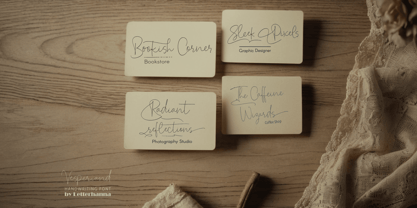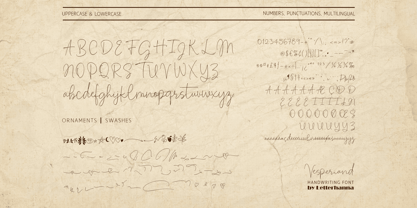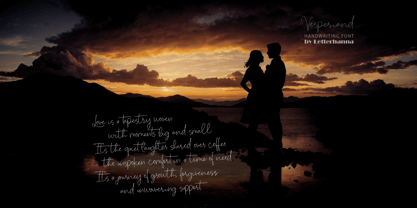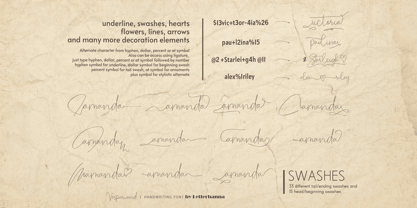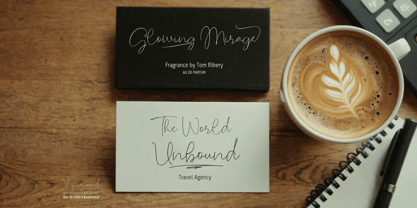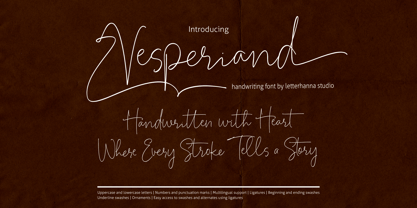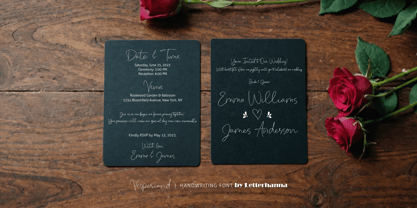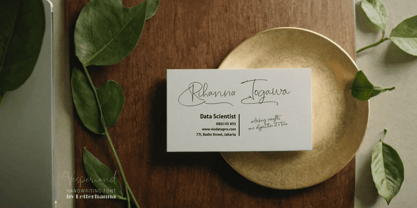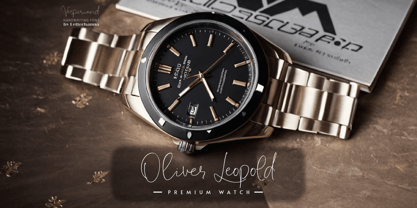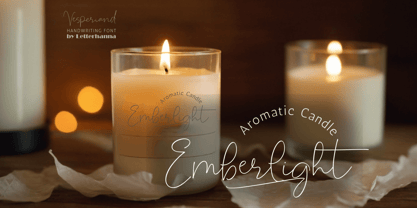
Vesperiand
by Letterhanna Studio
The Vesperiand Font Family was designed by Rinaldo Hasibuan and published by Letterhanna Studio. Vesperiand contains 1 styles.
Introducing Vesperiand, a handwriting script font crafted for those who seek elegance with a personal touch. Designed with a rich collection of stylistic alternates, graceful swashes, and fluid ligatures, Vesperiand brings a natural yet sophisticated feel to your typography. Whether you’re working on branding, invitations, or creative projects, this font effortlessly adapts, adding charm and uniqueness to every word.
Letterhanna Studio is a font designer from Yogyakarta, Indonesia, we specialize in handwritten script fonts, including lettering fonts, calligraphy fonts and brush fonts. Our fonts are carefully crafted to mimic natural handwriting, with a variety of ligatures so that each glyphs looks unique. Our fonts equipped with swashes to use as the beginning or ending swash of a word, and also equipped with underline swashes.